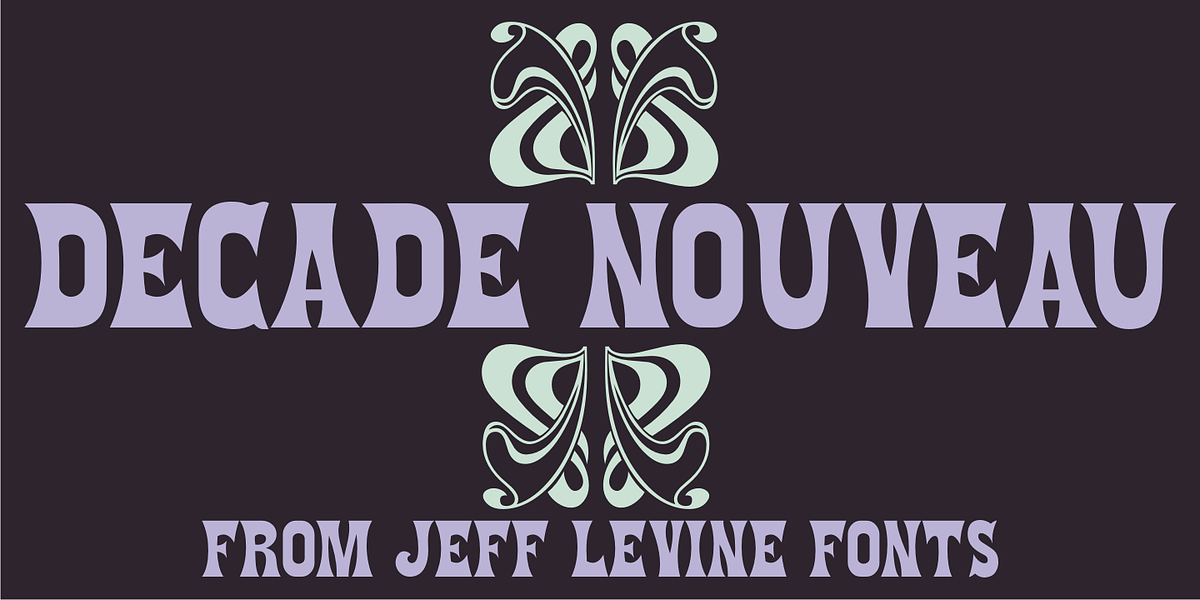
Decade Nouveau JNL
Decade Nouveau JNL is based on examples of an Art Nouveau wood type with a bit of Latin/Western typographic flare, and yet it is also reminiscent of the style’s revival during the hippie movement of the 1960s.